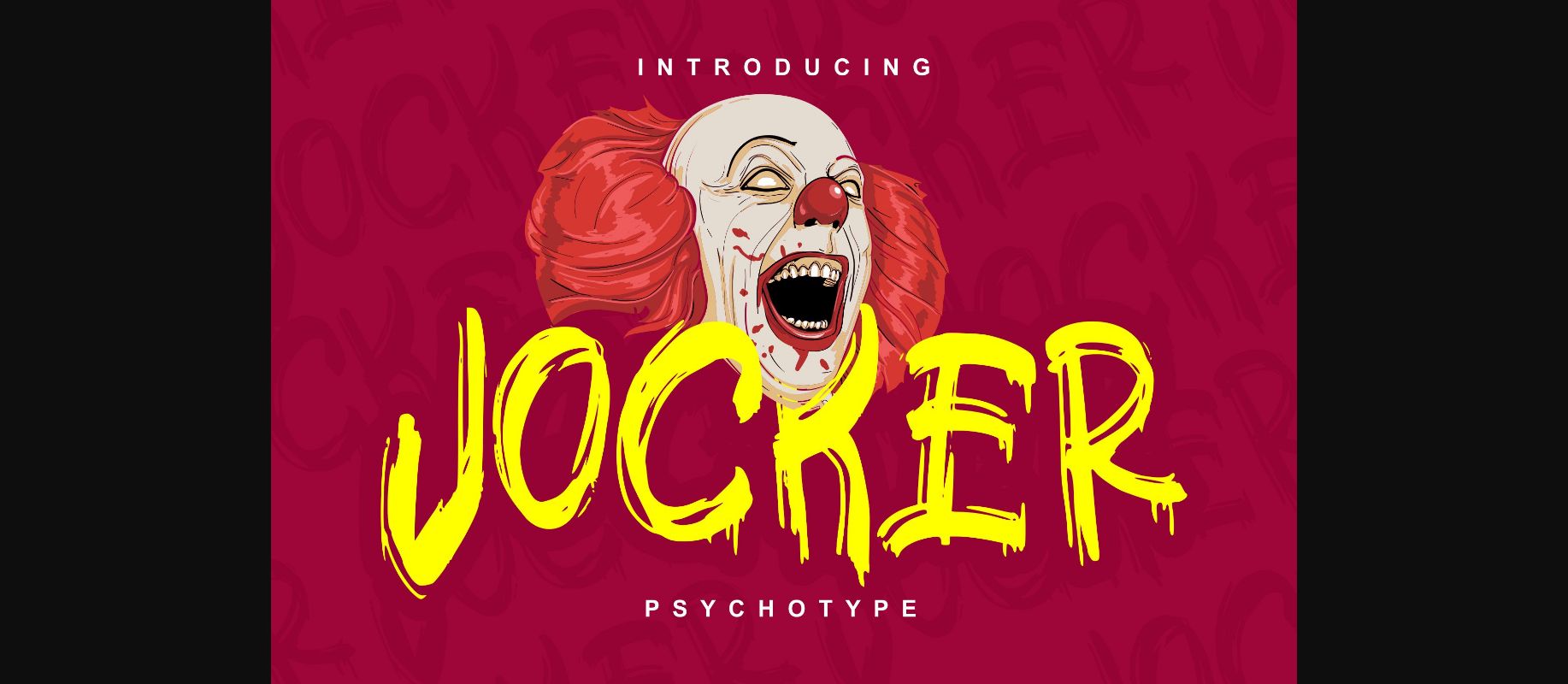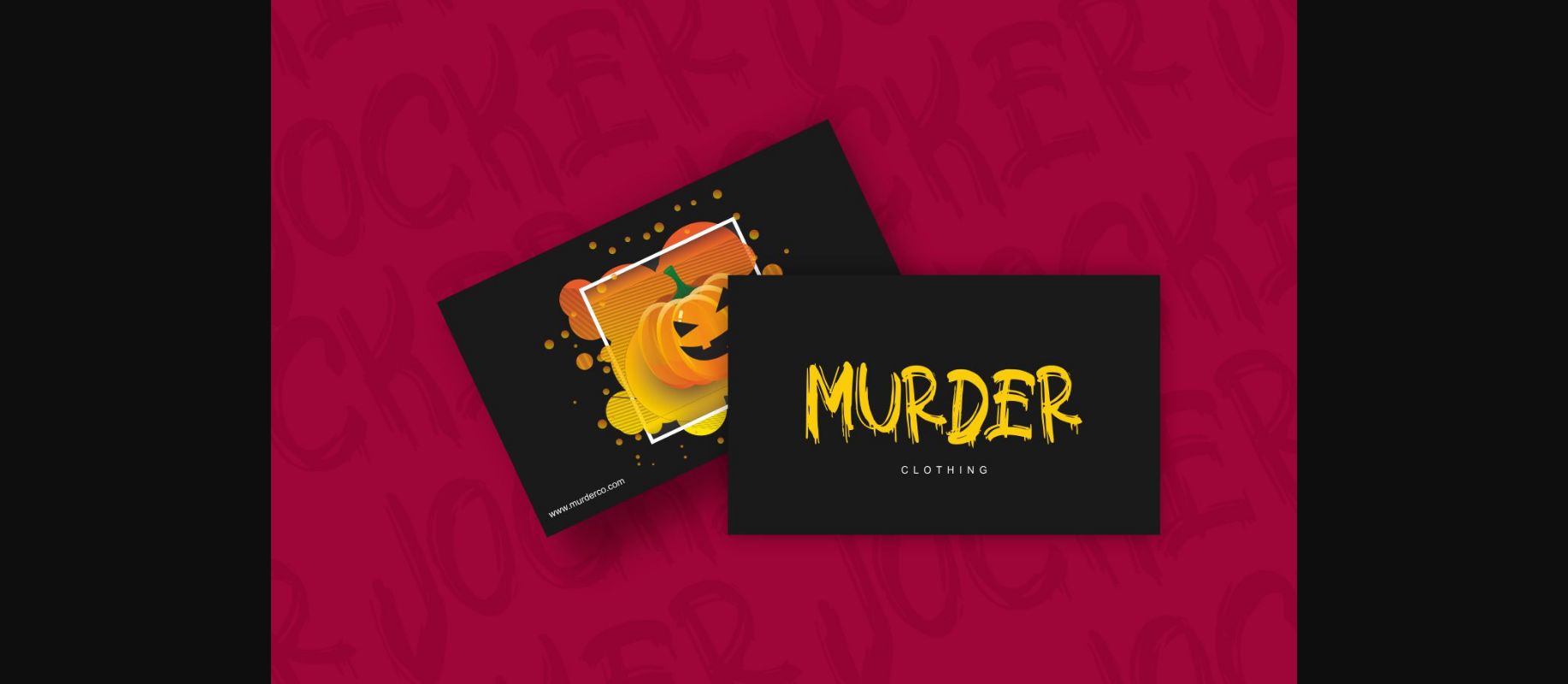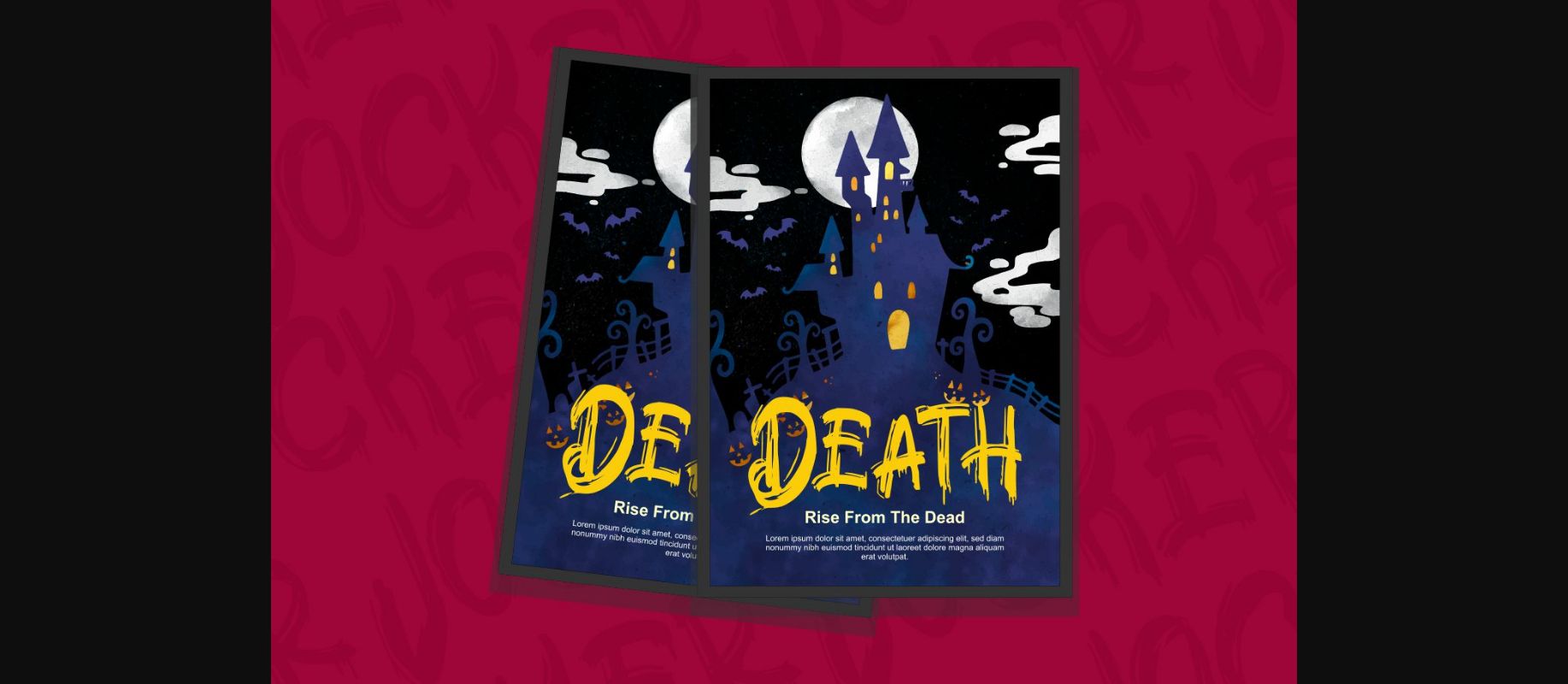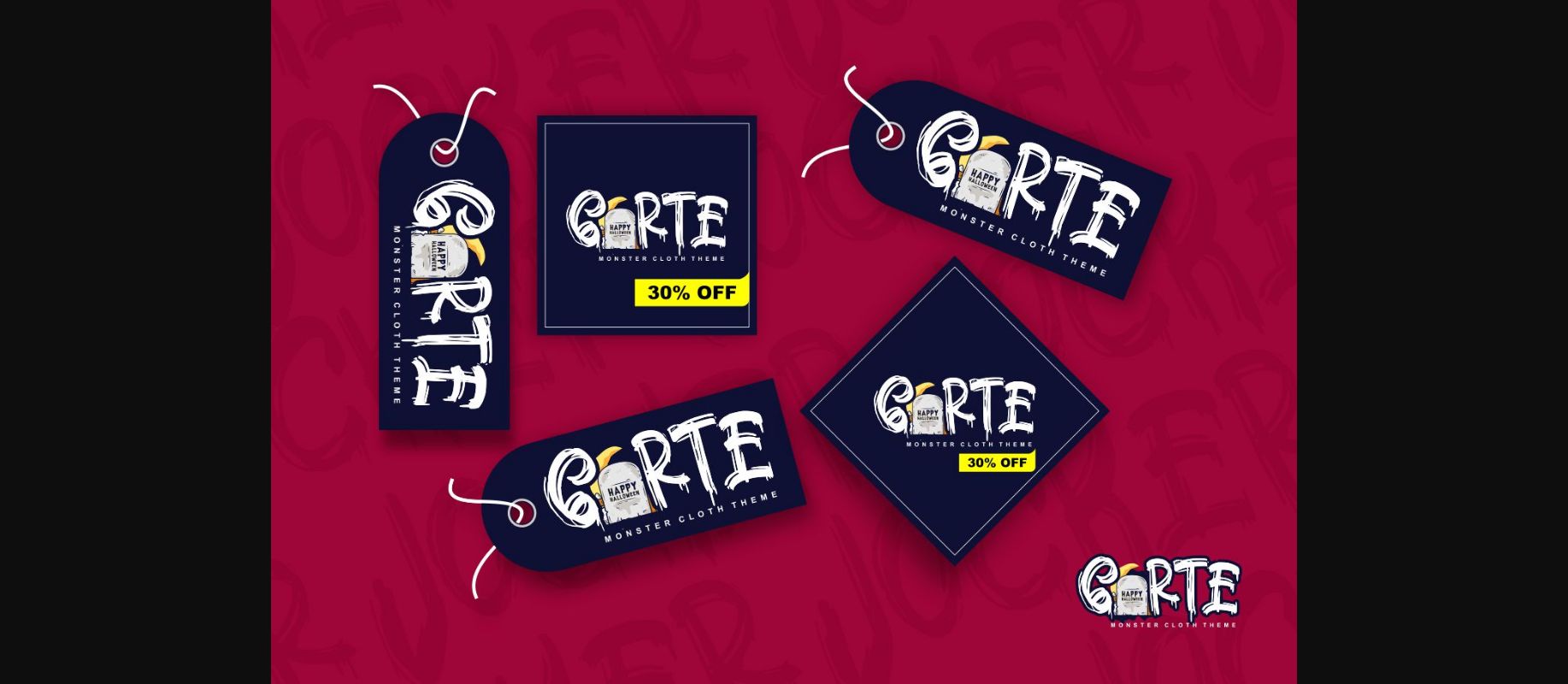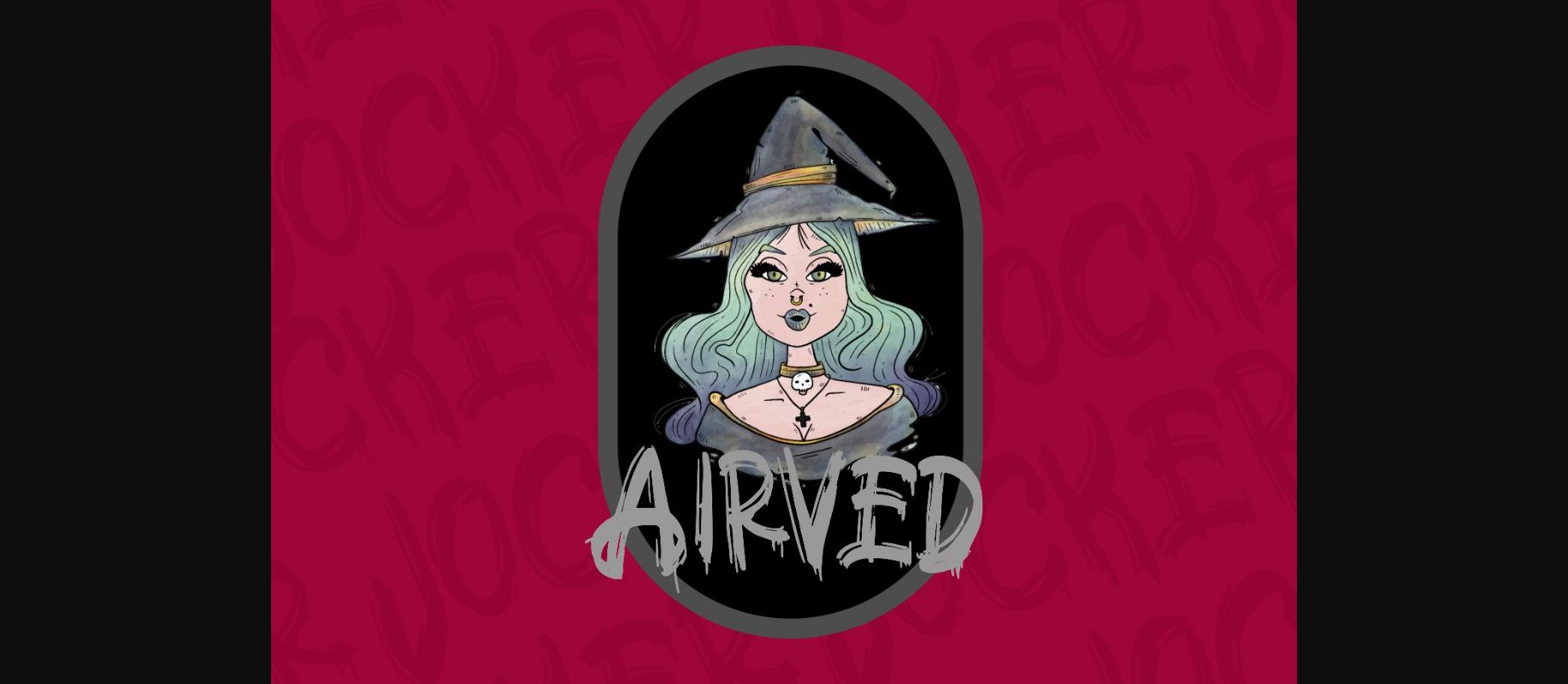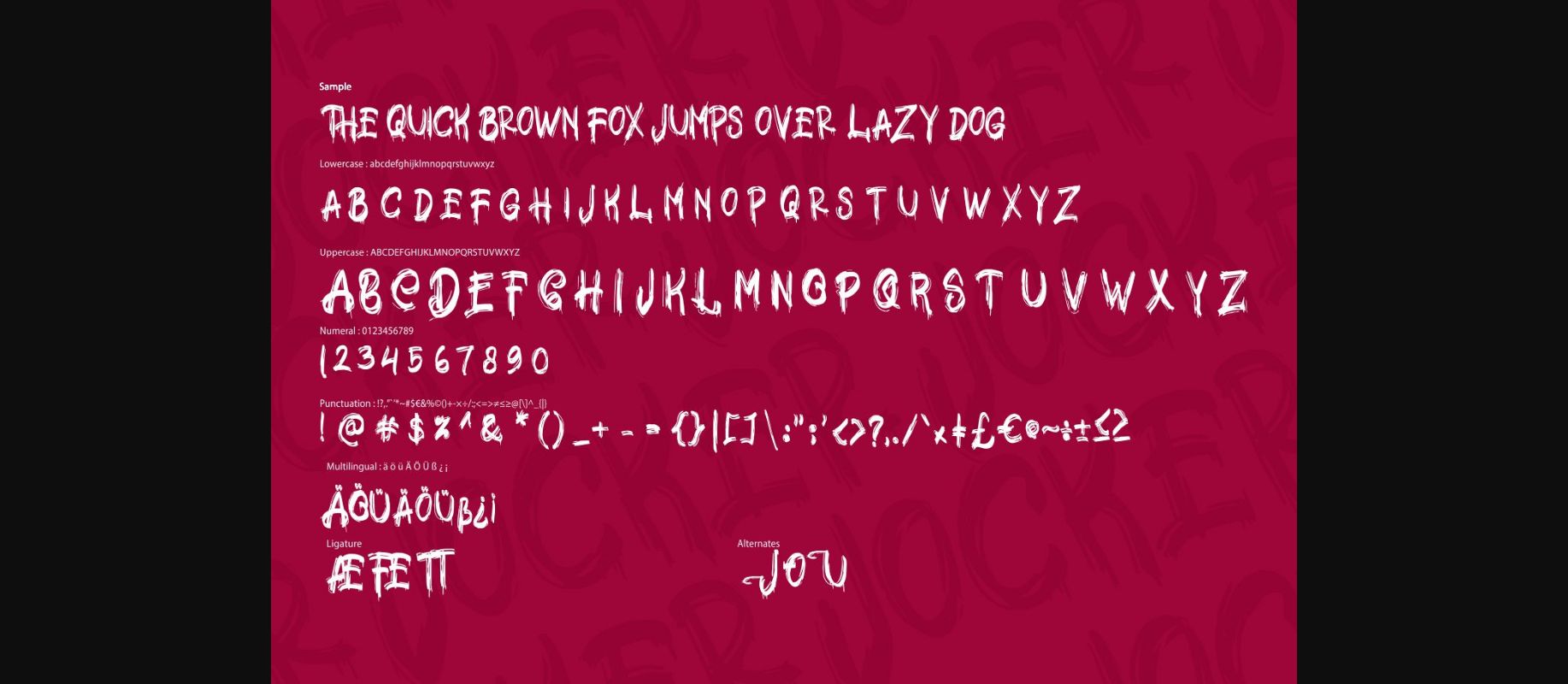
HomeDecorative FontsJocker Font Decorative Fonts Jocker Font FacebookXPinterestWhatsApp 1 of 6 About Jocker Font Jocker is an unpredictable, bold and fun decorative font with a crazy vibe. DOWNLOAD NOW People also explored Gingerbread Font Procke Font Learning Curve Pro Briefcase Font Brownies Font Easter Groovy Font Enthra Centro Blackstock Font Vilonna Semi-Bold Font 487 0 TagsJockerJocker Font Previous articleFriandise FontNext articleAdabra Font LEAVE A REPLY Cancel reply Comment: Please enter your comment! Name:* Please enter your name here Email:* You have entered an incorrect email address! Please enter your email address here Website: Save my name, email, and website in this browser for the next time I comment. Personal Use Free Braindly Personal Use Free Read more about this font Browie Personal Use Free Read more about this font Geracella Personal Use Free Read more about this font Sushi Day Personal Use Free Read more about this font BLOG How to Install and Use Fonts on Windows, macOS, and Web Projects How to Install and Use Fonts on Windows, macOS, and Web Projects Fonts are a crucial part of design and branding. Whether you’re designing a... Best Fonts for YouTube Videos: Make Your Thumbnails Stand Out How to Cut Any Font on Cricut: Convert a Font to SVG (Free) Using Fonts in Digital Marketing: Tips to Strengthen Your Brand Identity